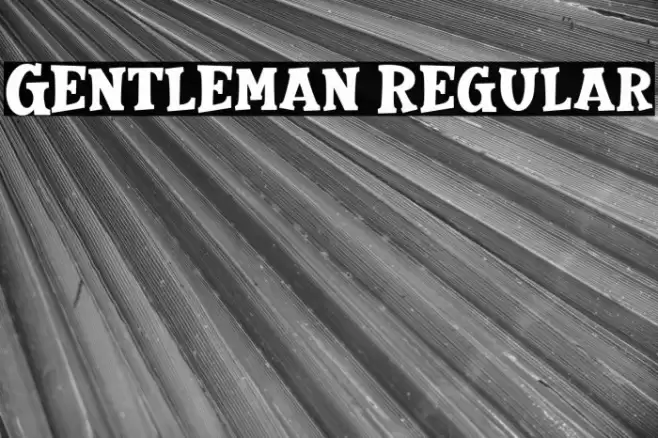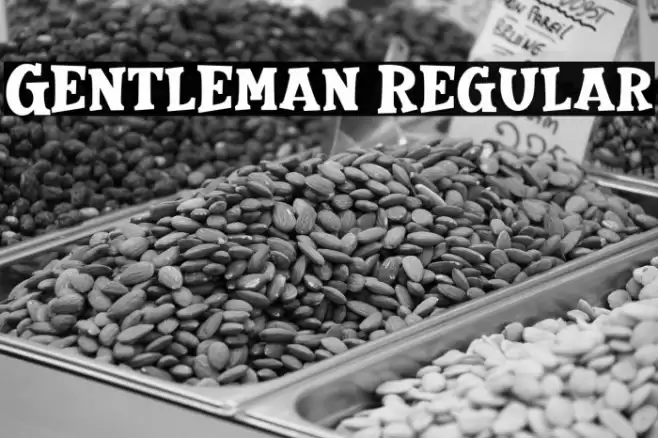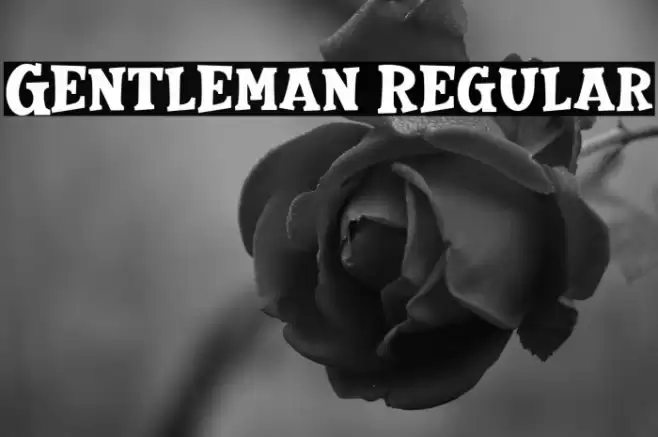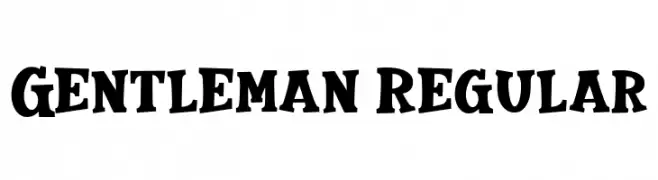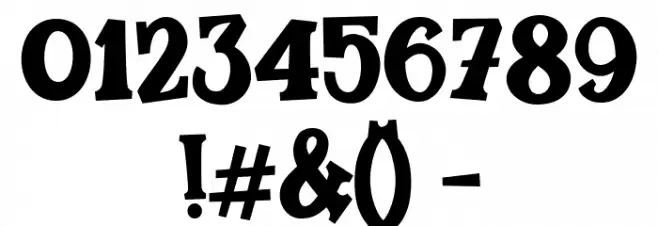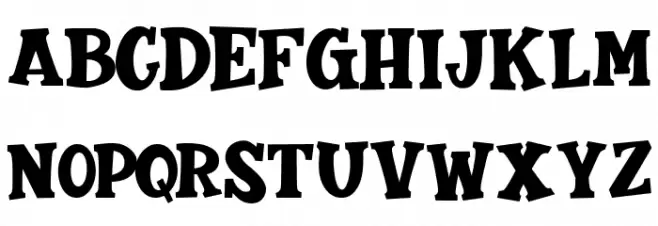
Gentleman Regular Font
Gentleman Regular Description
This font exhibits a bold and playful character with a distinctively quirky style. The letters are slightly irregular, giving it a hand-drawn appearance that adds a touch of whimsy. The strokes are thick and consistent, providing a strong visual impact. The overall design is reminiscent of vintage or retro styles, making it suitable for projects that require a fun and engaging aesthetic. The numbers and special characters maintain the same playful and bold characteristics, ensuring consistency across all elements.
A bold, playful font with a quirky, hand-drawn style from Uncategorized fonts.
- Proposed Projects: Ideal for children's books, playful branding, posters, and retro-themed designs.
- Overall Style: Vintage